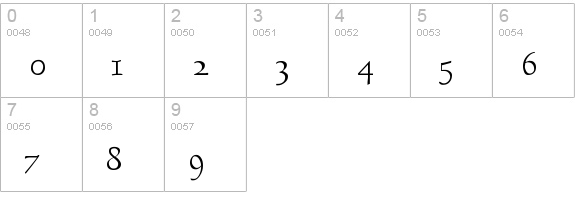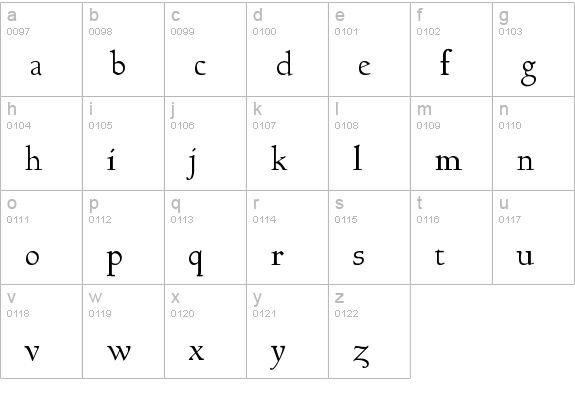
GoundyHundred-I Font Details
GoundyHundred-I is a stunning display font that exudes elegance and sophistication. With its unique blend of modern and traditional elements, this font is perfect for adding a touch of class to any design project. Its sharp, clean lines and intricate details make it stand out from the crowd and capture the attention of viewers. What sets GoundyHundred-I apart is not only its striking appearance but also the fact that it is completely free to download. Yes, you read that right – this exquisite font is available for free at FontsMarket.com. Whether you are working on a personal project or a professional design, GoundyHundred-I is sure to elevate your work to the next level. Download it now and unleash your creativity with this exceptional font.